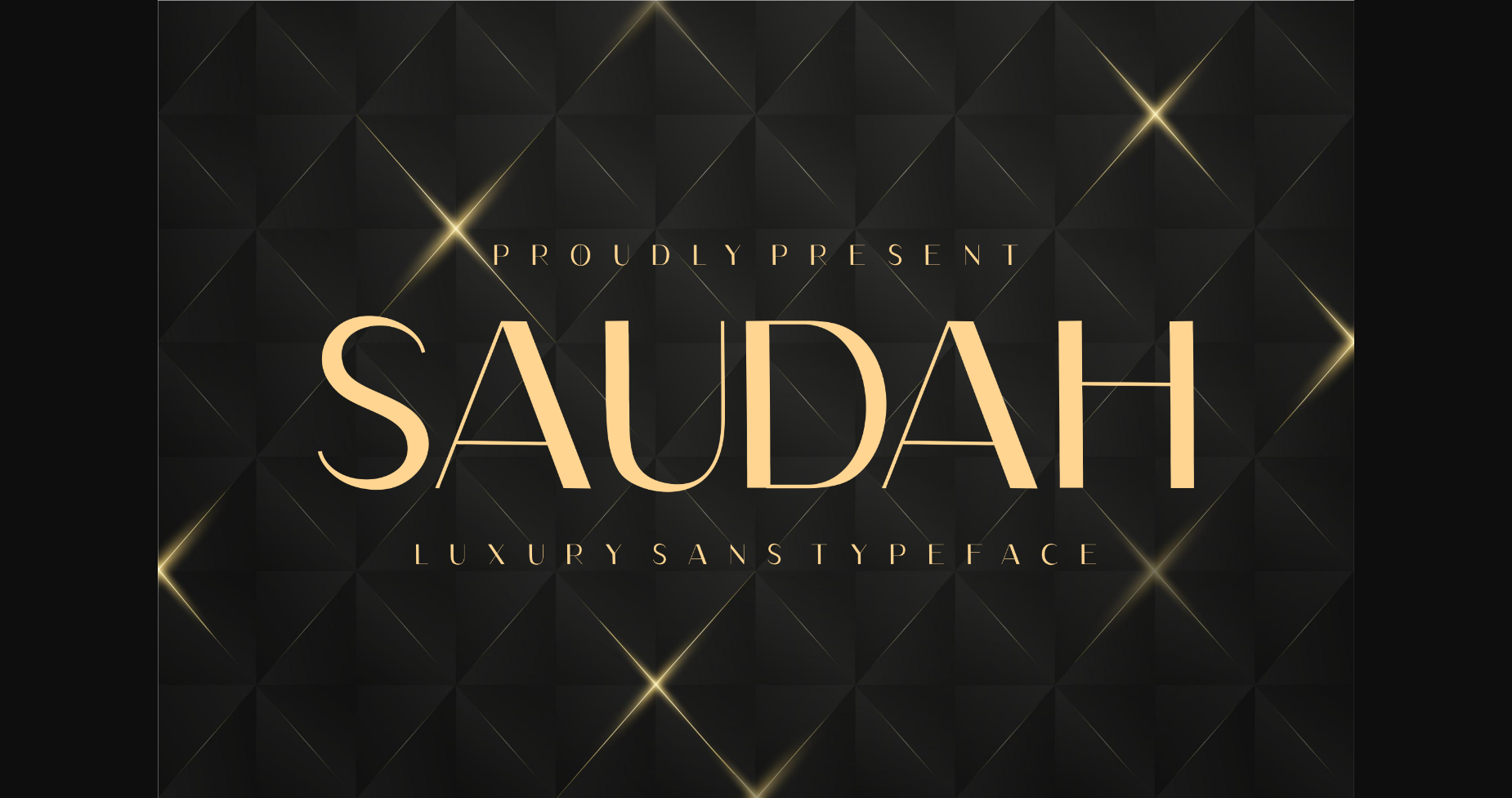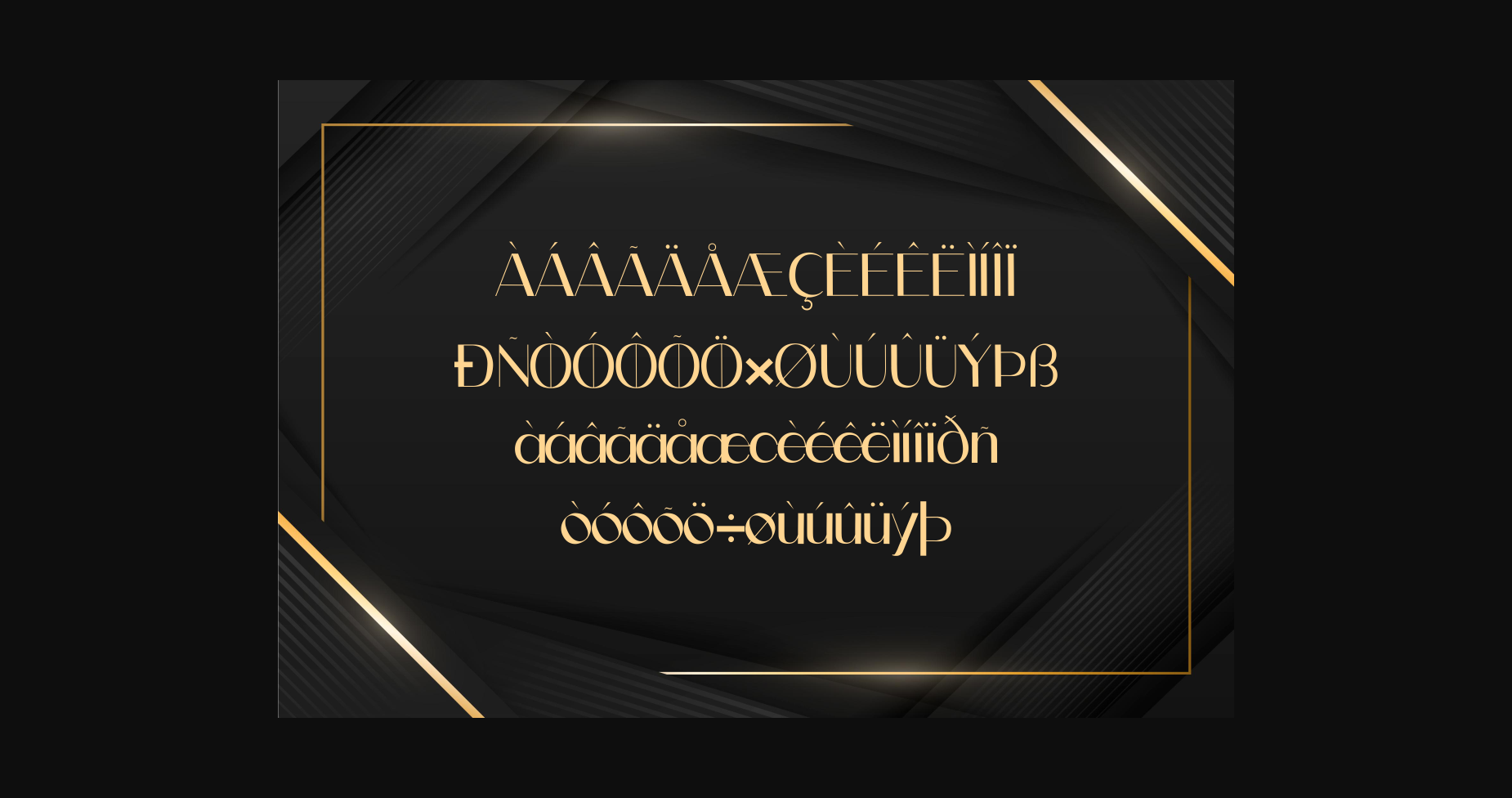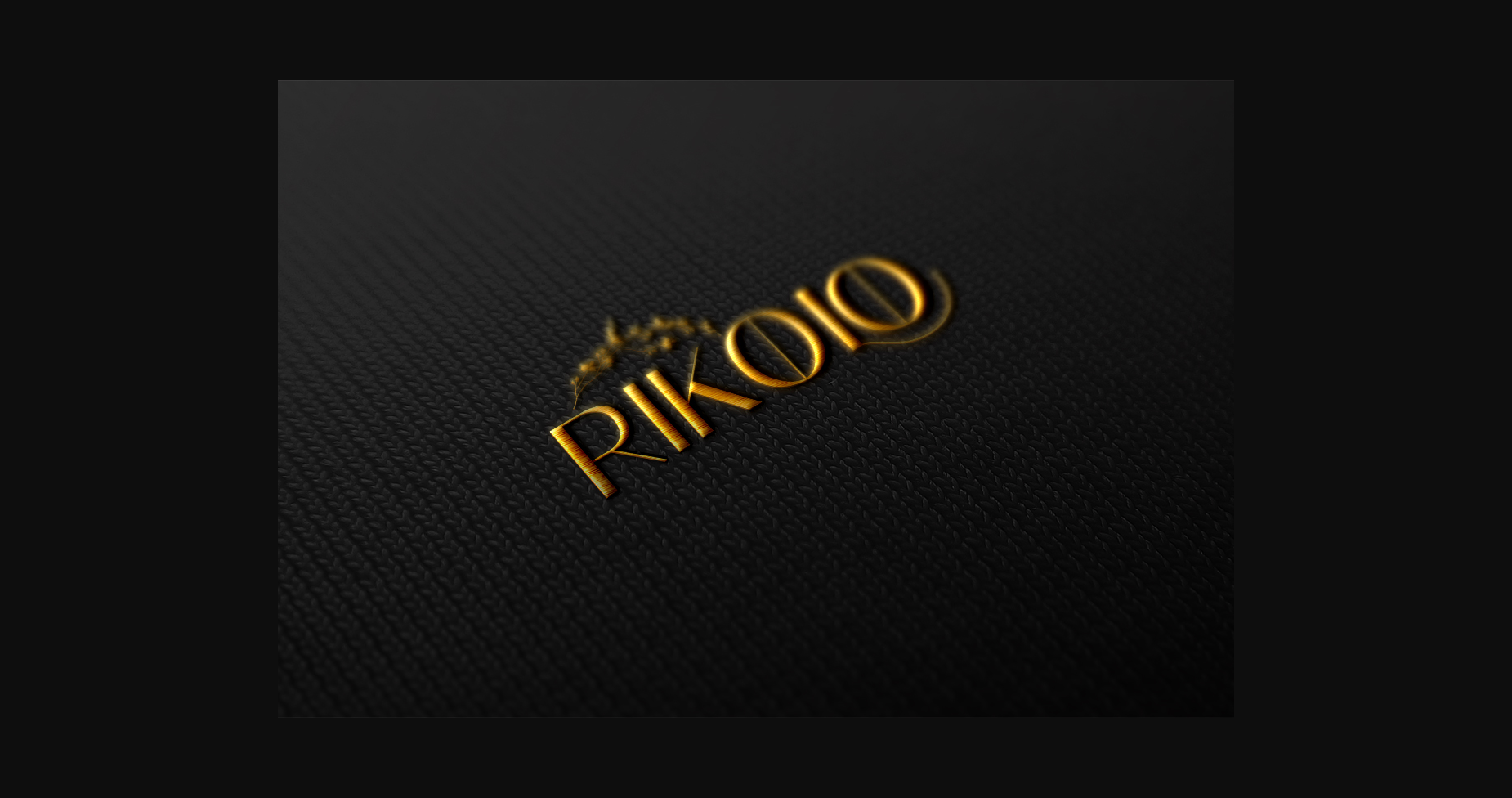
About Saudah Font
Saudah is a deluxe and elegant sans-serif font that radiates refinement and luxury. With its sleek lines and sophisticated design, this font is perfect for conveying a sense of high-end sophistication and class. Whether it’s for branding, product packaging, or editorial design, “Saudah” will add a touch of elegance and exclusivity to your project.